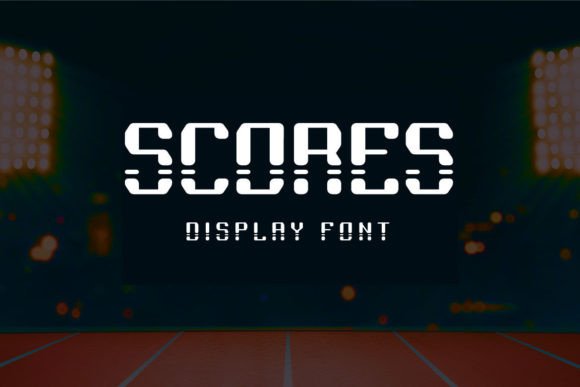
Journey into the world of Scores Font, the audacious and powerful display font poised to ignite your creativity. This font is more than just a collection of letters; it's an artistic force that commands attention and leaves an indelible mark. Crafted by the ingenious minds at Mightyfire, Scores Font is the ultimate weapon in your design arsenal, ready to transform your projects into captivating masterpieces.
Indulge in the font's bold and assertive personality, perfect for grabbing the spotlight in titles and headlines. Whether you're designing logos, posters, or social media graphics, Scores Font demands attention, ensuring your message cuts through the noise and resonates with your audience. Unleash your inner artist and let this font guide you toward visual excellence.
Embrace the versatility of Scores Font, a true chameleon that adapts effortlessly to any design concept. From sleek and modern to playful and whimsical, this font possesses the rare ability to elevate every project it graces. It's the perfect choice for creating visually stunning titles that captivate your audience and leave them craving more.
Experience the thrill of using a font that not only enhances your work but also reflects your unique style. Scores Font is more than just a font; it's an extension of your artistic vision, a tool that allows you to express yourself with unparalleled creativity and precision. Don't settle for ordinary fonts that blend into the background. Choose Scores Font, the font that demands attention and sets your work apart from the rest.